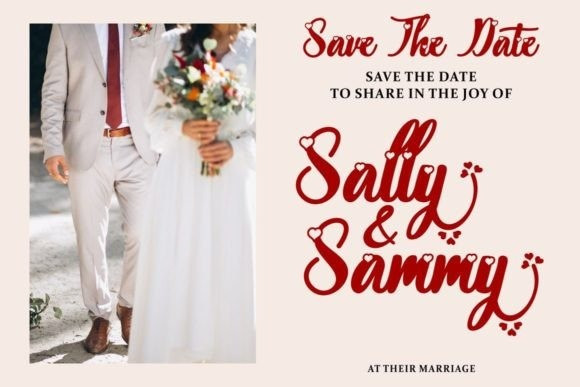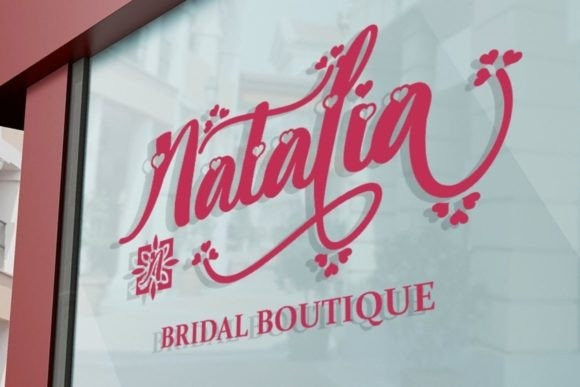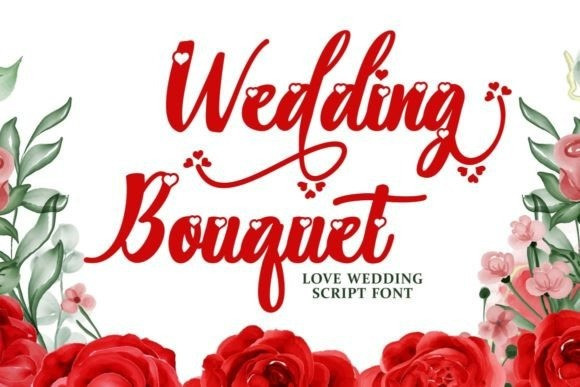
Wedding Bouquet Font
Wedding Bouquet Script Font is a lovely and cute script font. Dainty and joyful, this font will be ideal for writing wedding invitations, cards or any other design that may need a romantic, personalized touch!